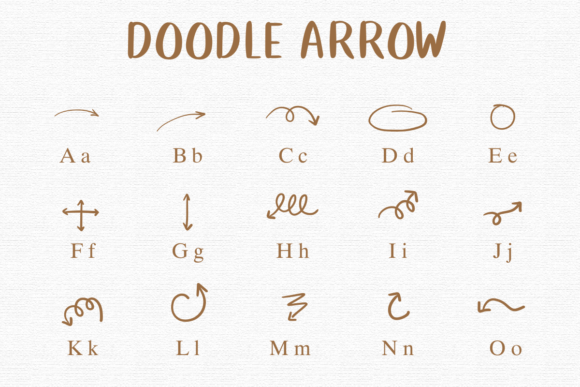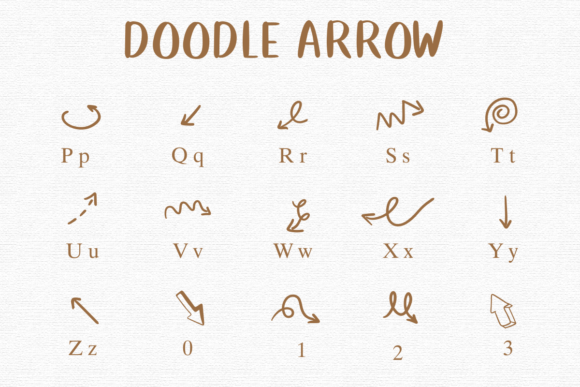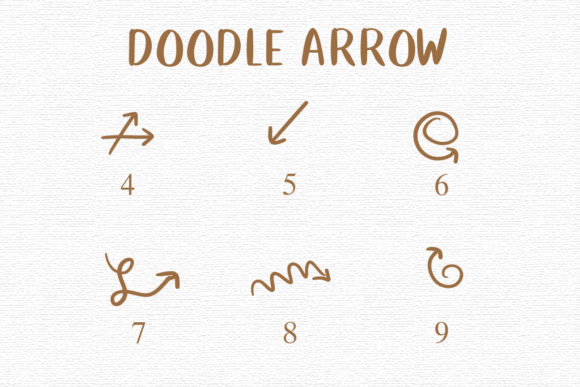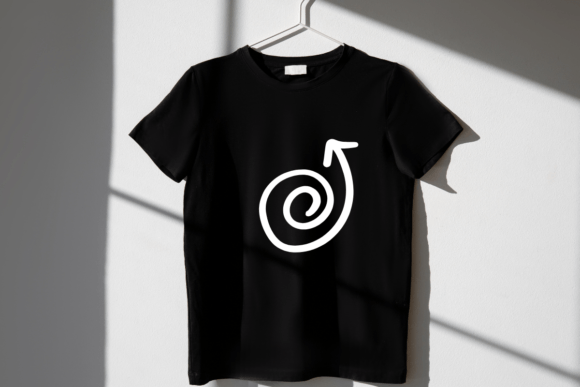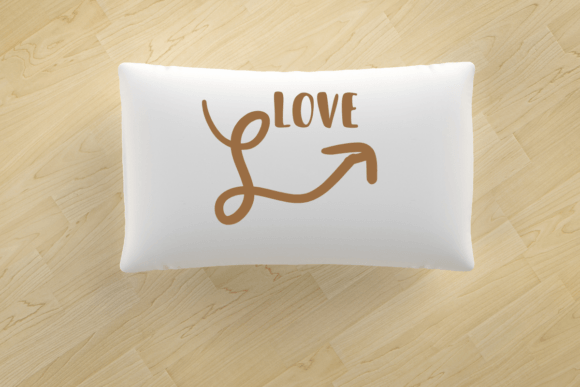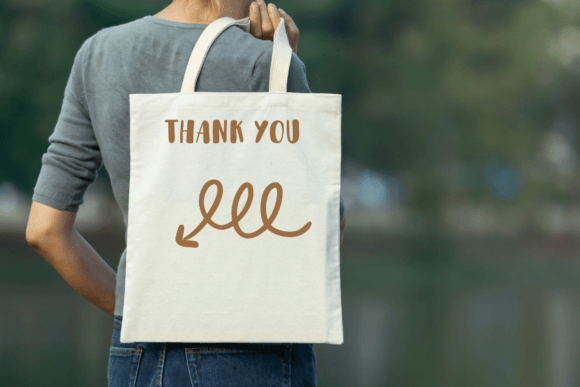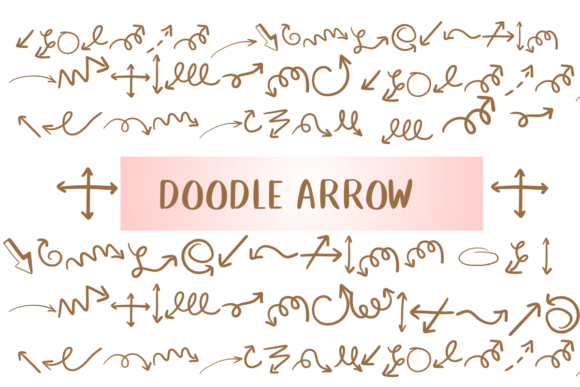
Doodle Arrow Font: Add a Whimsical Touch to Your Designs
Are you tired of using the same old boring fonts in your designs? Look no further than the Doodle Arrow Font! This fun font features cute, curly arrows that are sure to add a playful and unique touch to your projects. In this article, we’ll take a closer look at the Doodle Arrow Font, its features, and how you can use it to take your designs to the next level.
What is Doodle Arrow Font?
DOODLE ARROW is a fun font that features cute, curly arrows. Each arrow looks hand-drawn, giving it a playful and unique style. The font is perfect for designers, crafters, and anyone looking to add a whimsical touch to their projects. Whether you’re working on a graphic design project, a craft project, or just want to add some personality to your digital communications, the Doodle Arrow Font is a great choice.
Features of Doodle Arrow Font
The Doodle Arrow Font has several features that make it stand out from other fonts. Some of its key features include:
• Hand-drawn look: Each arrow in the font has a hand-drawn look, giving it a unique and playful style.
• Cute and curly: The arrows in the font are cute and curly, making them perfect for adding a whimsical touch to your designs.
• Playful style: The font has a playful style that’s perfect for designers and crafters who want to add some personality to their projects.
How to Use Doodle Arrow Font
Using the Doodle Arrow Font is easy! Here are a few ways you can use it in your designs:
• Graphic design projects: Use the Doodle Arrow Font in your graphic design projects, such as brochures, flyers, and posters.
• Craft projects: Add the font to your craft projects, such as handmade cards, scrapbooking, and DIY signs.
• Digital communications: Use the font in your digital communications, such as email signatures, social media graphics, and blog posts.
Benefits of Using Doodle Arrow Font
There are several benefits to using the Doodle Arrow Font in your designs. Some of the benefits include:
• Adds a whimsical touch: The font adds a whimsical touch to your designs, making them more visually appealing.
• Unique style: The font has a unique style that sets it apart from other fonts.
• Playful personality: The font adds a playful personality to your designs, making them more engaging and fun.
Tips for Using Doodle Arrow Font
Here are a few tips for using the Doodle Arrow Font in your designs:
• Use it sparingly: Use the font sparingly to avoid overwhelming your design.
• Pair it with other fonts: Pair the Doodle Arrow Font with other fonts to create a unique and visually appealing design.
• Experiment with colors: Experiment with different colors to find the perfect combination for your design.
Font Name Doodle Arrow Font
Author Nongyao
The Doodle Arrow Font is a fun and unique font that’s perfect for designers and crafters who want to add a whimsical touch to their projects. With its hand-drawn look, cute and curly arrows, and playful style, it’s sure to make your designs stand out. Whether you’re working on a graphic design project, a craft project, or just want to add some personality to your digital communications, the Doodle Arrow Font is a great choice.